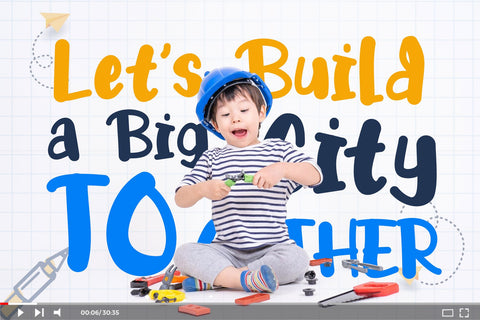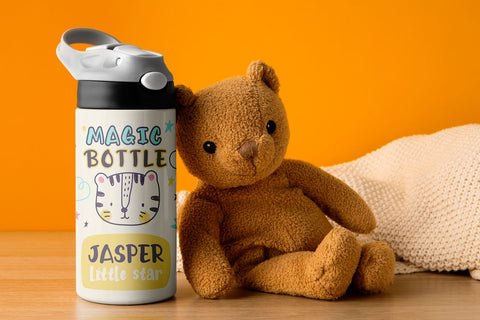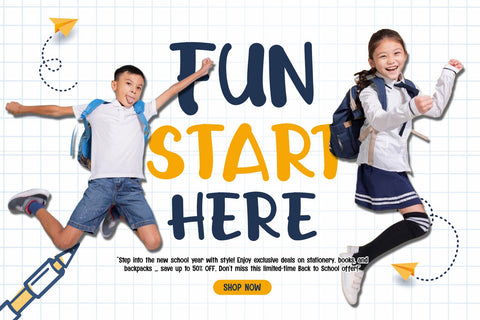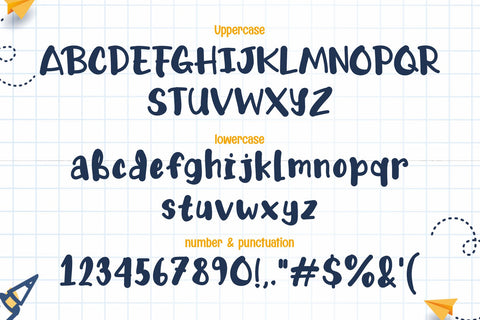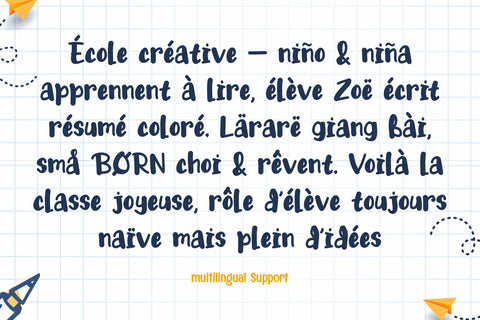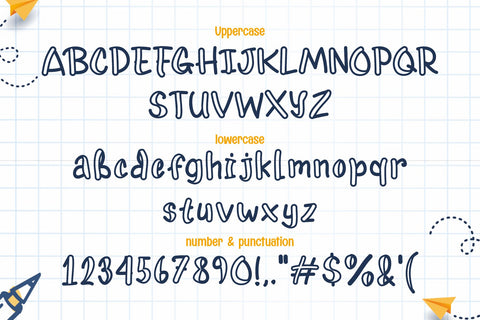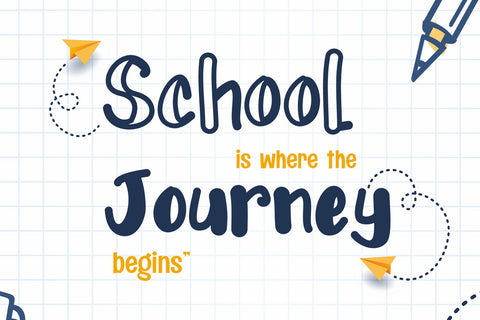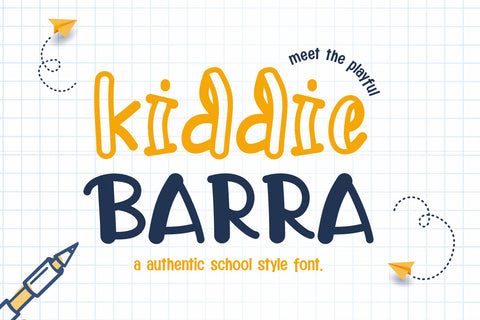
Kiddie Barra – Authentic School Style Font
Kiddie Barra is an authentic school-style font designed to bring the playful charm of children’s handwriting into your projects. Available in two styles—Regular and Hollow—it offers a versatile toolkit for educators, designers, and creatives who want to capture the spirit of childhood learning and fun. Inspired by the natural way kids write and doodle, Kiddie Barra combines casual strokes with rounded letterforms to create a font that is both friendly and expressive.
Perfect for educational materials, children’s books, classroom posters, and back-to-school campaigns, Kiddie Barra provides a warm and approachable look that resonates with young audiences. Its Regular style works beautifully for titles and bold text, while the Hollow style adds a lighter, decorative touch that can be layered with colors or used to highlight key elements. Together, they create a cohesive family that adapts easily to a wide range of design needs.
Kiddie Barra isn’t just for print—it shines in digital applications as well. From e-learning platforms and educational apps to playful social media graphics, this font ensures readability while maintaining its hand-drawn charm. Its dual styles give designers the freedom to experiment with combinations, layering, and creative layouts without losing consistency.
At its core, Kiddie Barra embodies the energy and curiosity of childhood. It’s not just a typeface, but a design companion for projects that aim to educate, entertain, and inspire. Whether you’re creating learning resources, branding a kid-friendly business, or producing colorful merchandise, Kiddie Barra delivers authenticity, creativity, and a touch of playful joy.